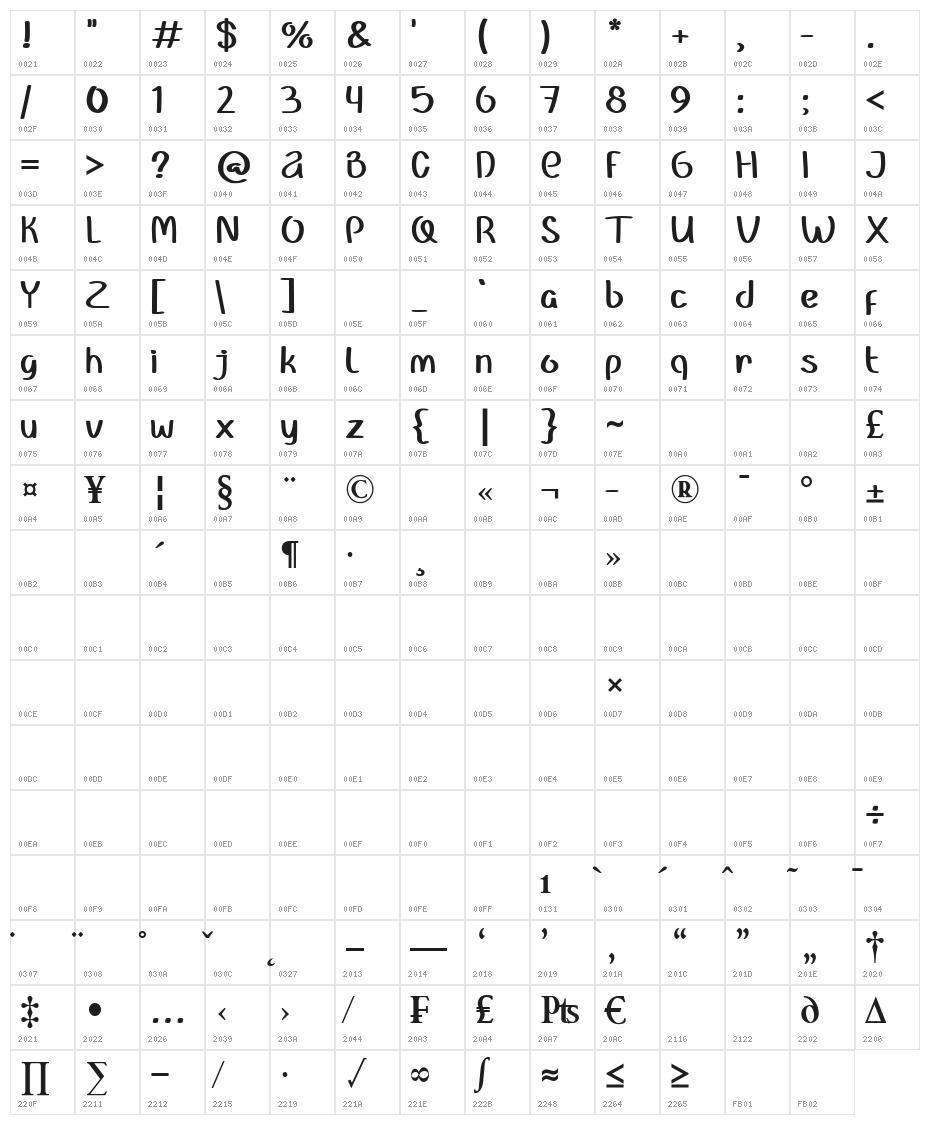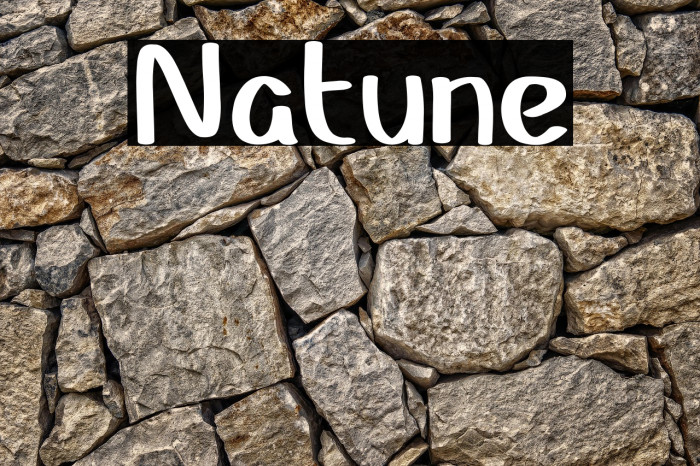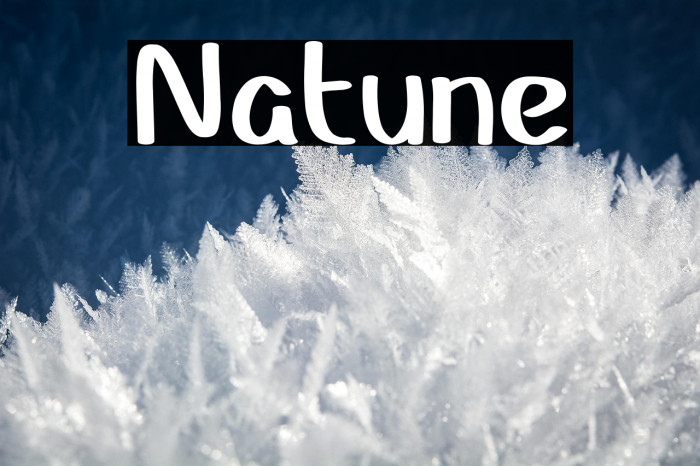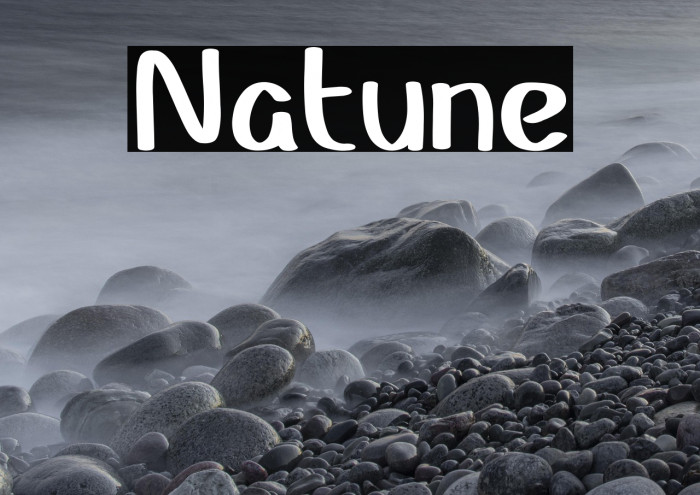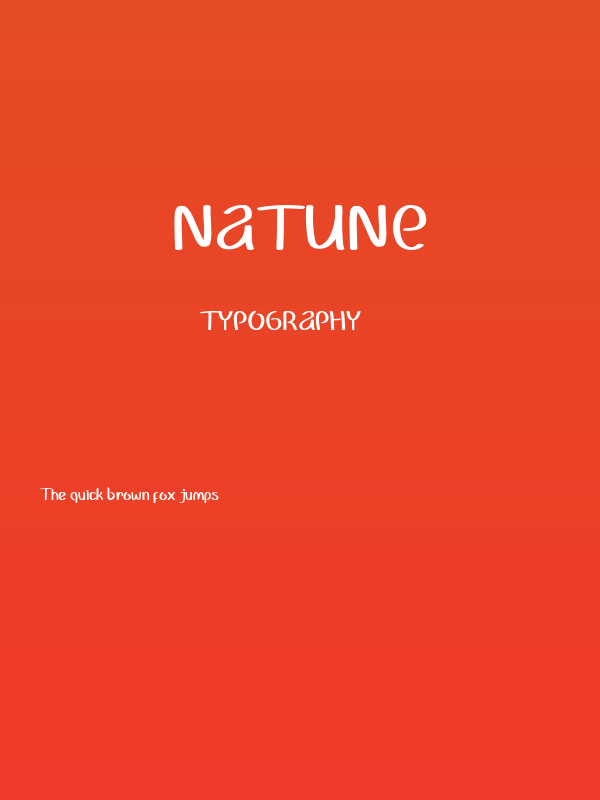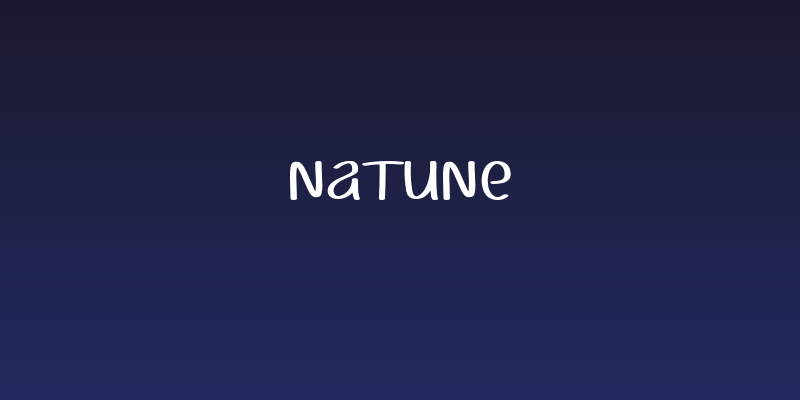
Natune Font
Natune Description
This playful and whimsical font features a handwritten style with smooth, rounded edges and a casual, friendly appearance. The characters are slightly irregular, adding a touch of personality and charm. The uppercase letters maintain a consistent height, while the lowercase letters have a more varied baseline, enhancing the informal feel. The numerals are bold and clear, making them easily readable. Special characters are creatively designed to match the overall style, ensuring cohesion throughout the font. This typeface is perfect for projects that require a personal, approachable touch.
| Overall Style | Playful |
| Use Case | Headlines, Logos, Informal Text |
| Proposed Projects | Ideal for greeting cards, children's books, playful branding, and social media graphics. |